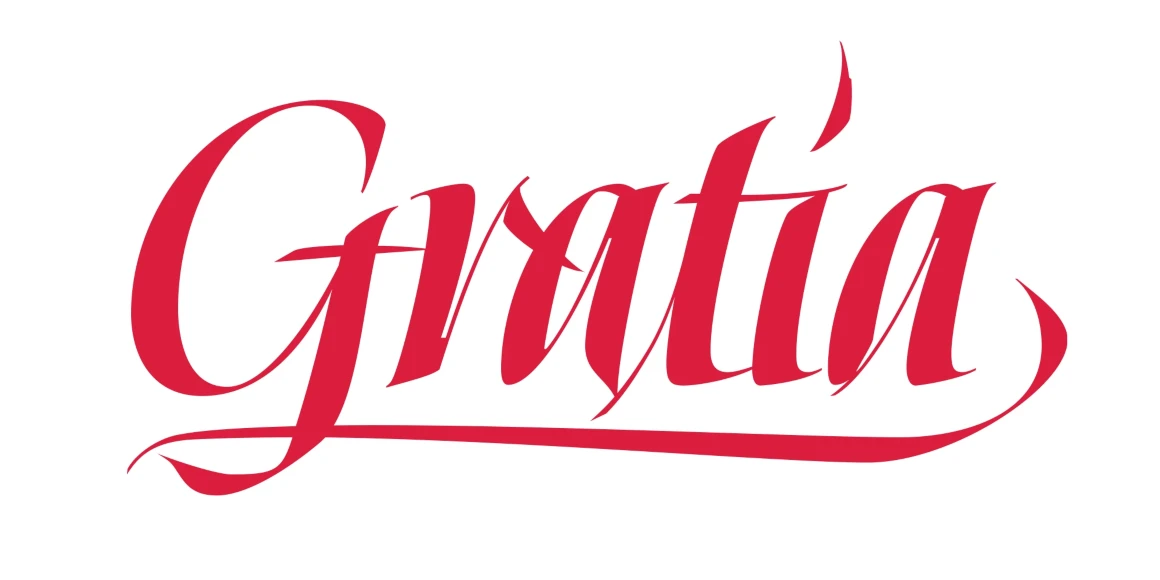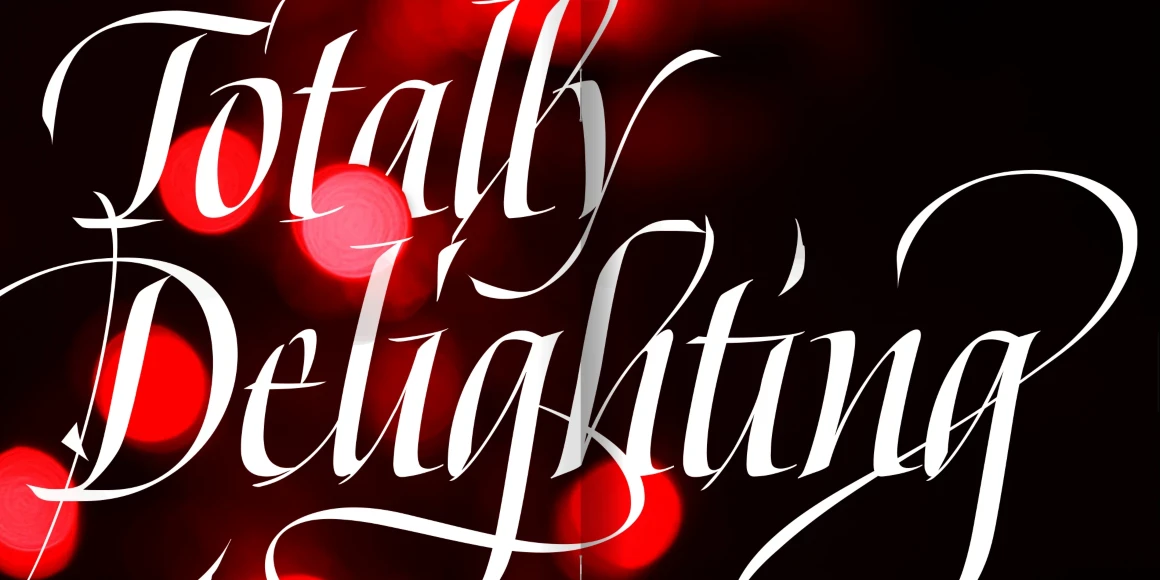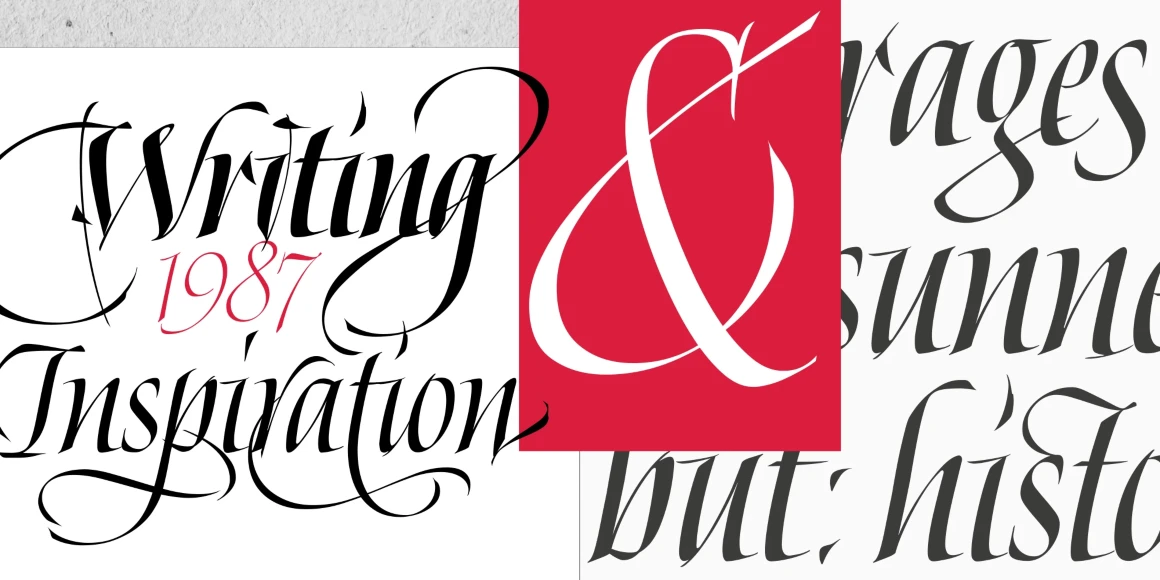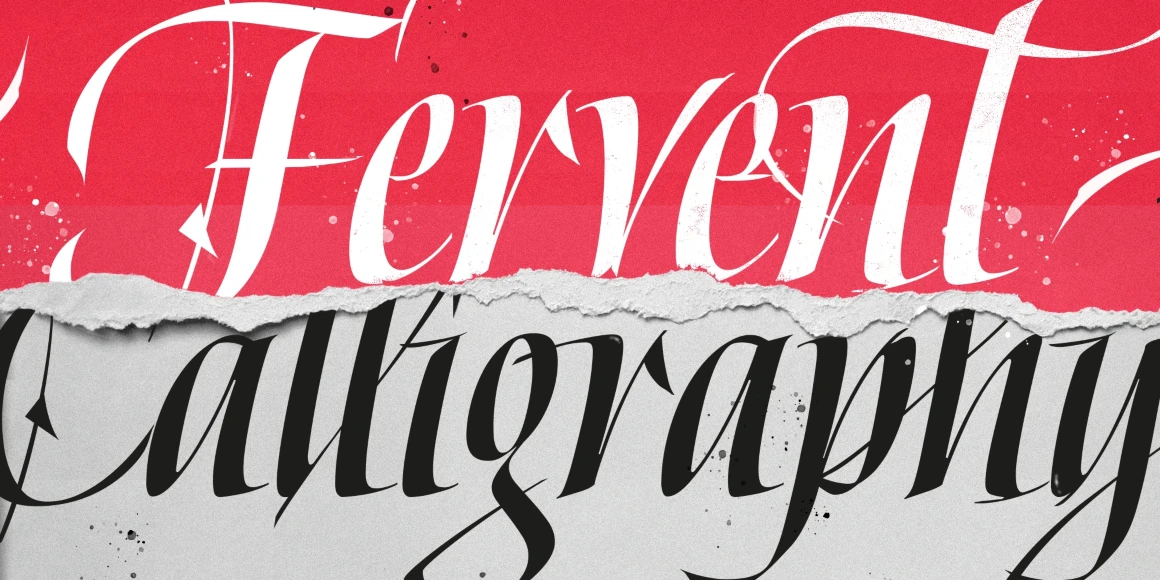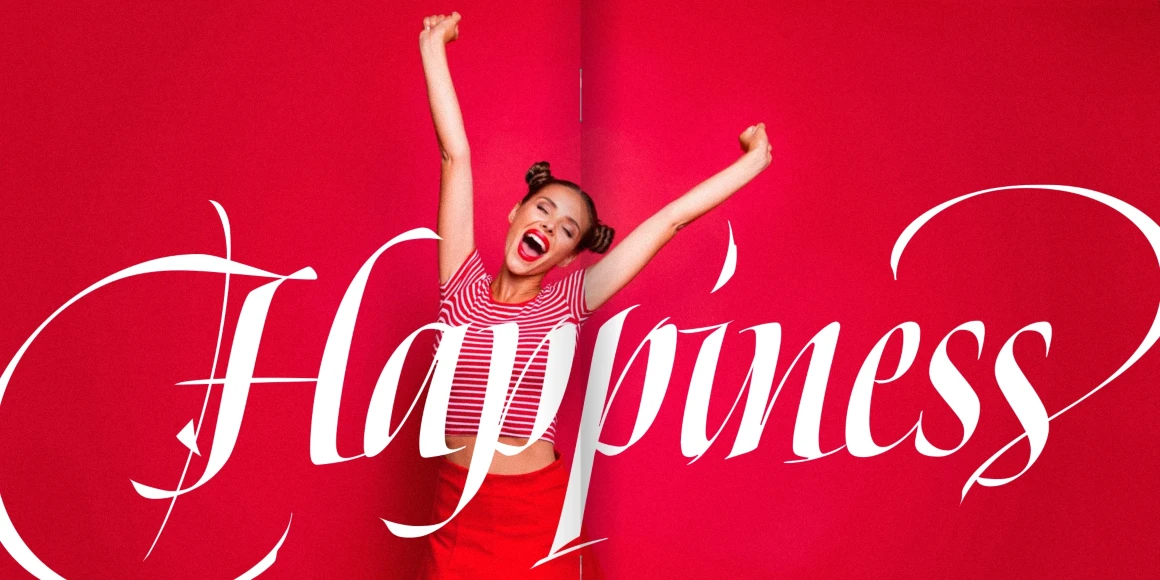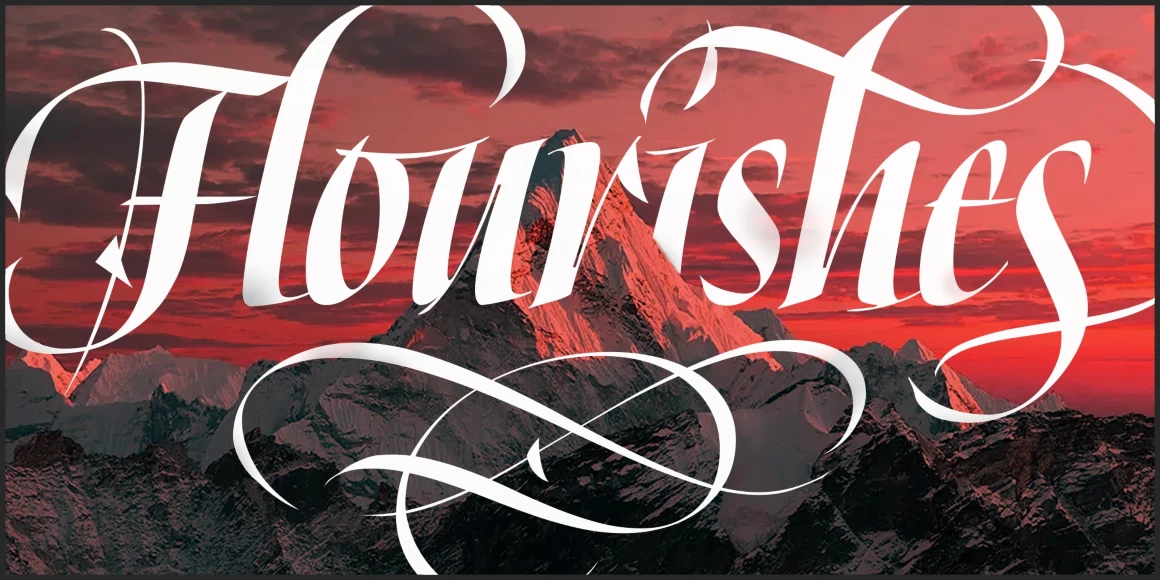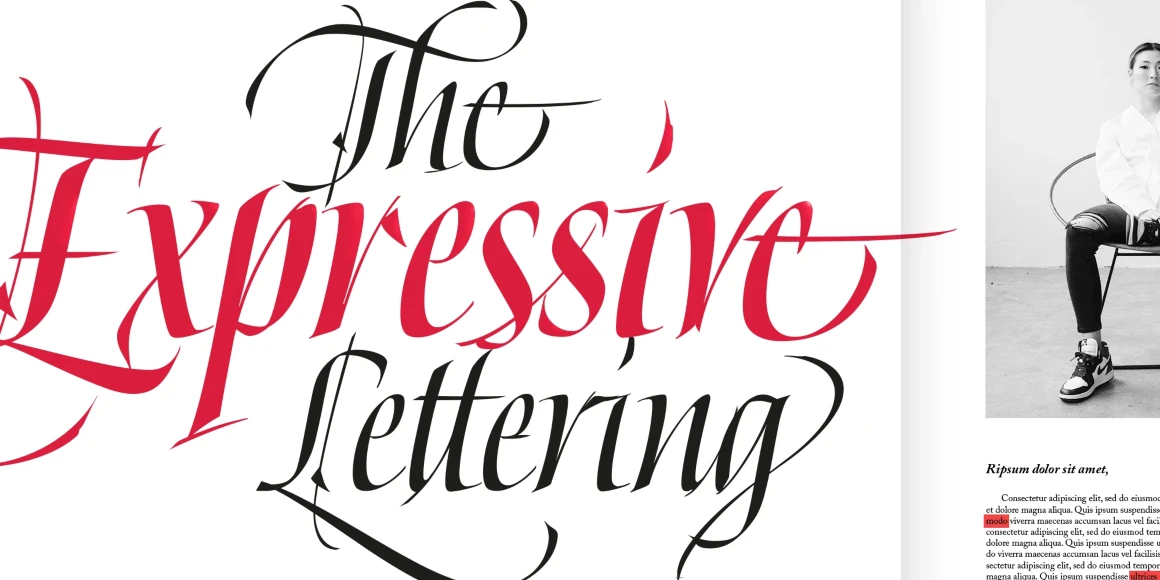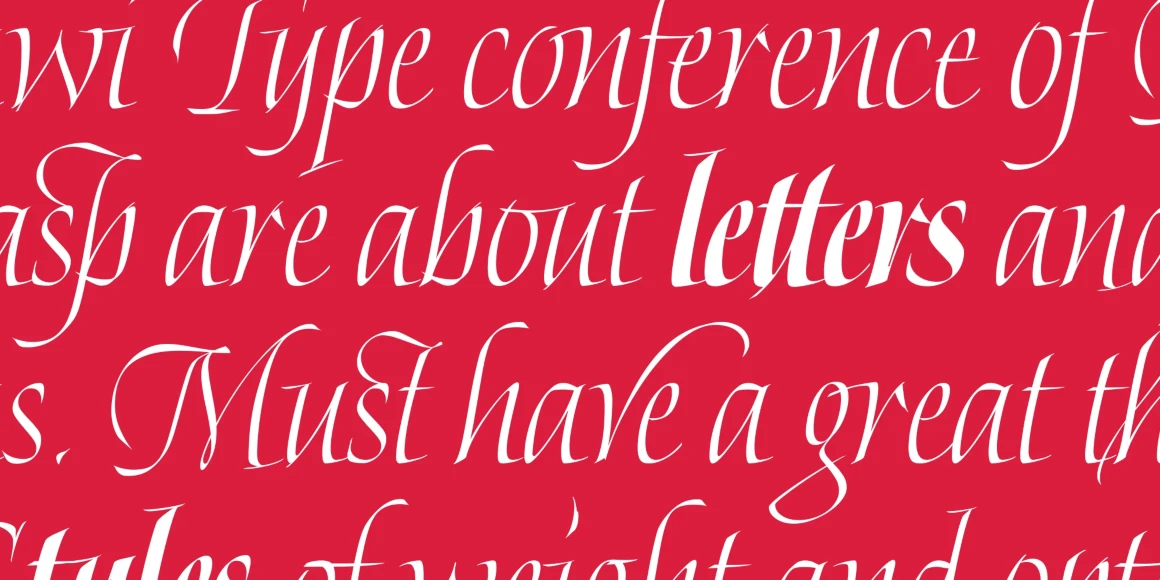
Gratia
By Maximiliano Sproviero
Gratia Variable
Gratia Regular
Gratia Bold
Gratia Extra Bold
Gratia Black
Gratia is a mesmerizing blend of serenity and intensity in a script. With its angular curves, it takes cues from the timeless elegance of Cancelleresca calligraphy. The typeface is infused with Sproviero’s unmistakable expressiveness and sense of movement as it embodies speed, sophistication, and versatility. Its extensive range of alternates provides ample opportunities for creative exploration. From fashion spreads to international brands, Gratia adds a touch of elegance to every project.